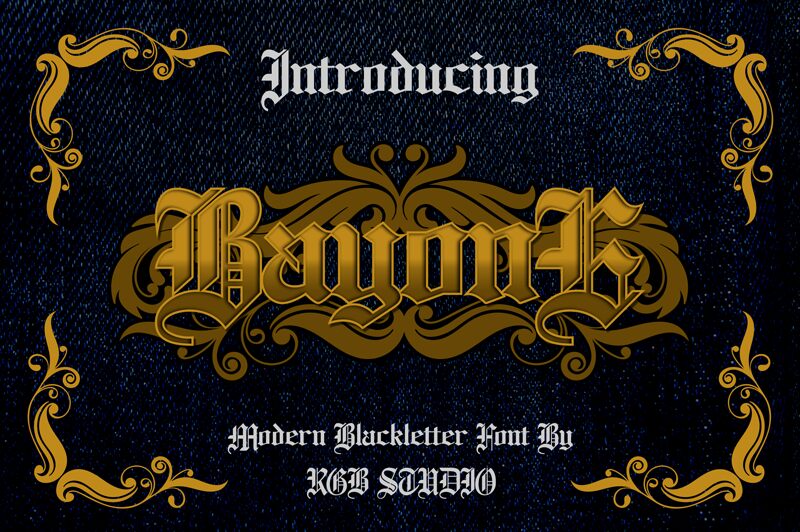
Bayone
Since this is a gothic typeface, it comes with a medieval style, but still reflects modernity. Bayone can be used for books covers, vintage posters design, logos branding, magazine headers and footers, advertisements, packaging design, product labeling, quotes and t shirt design and anything else where a gothic typeface would match well.
Bayone is a bold, distinct, and elegant blackletter font. Add it confidently to your projects, and you will love the results.